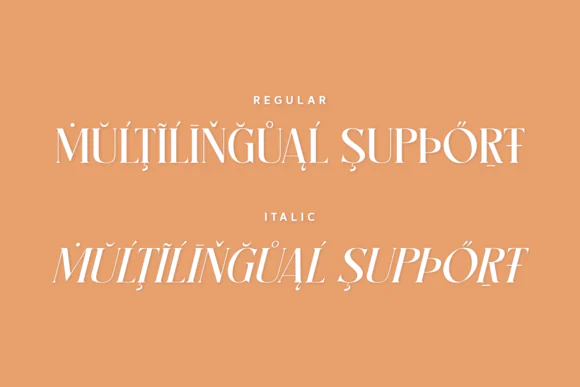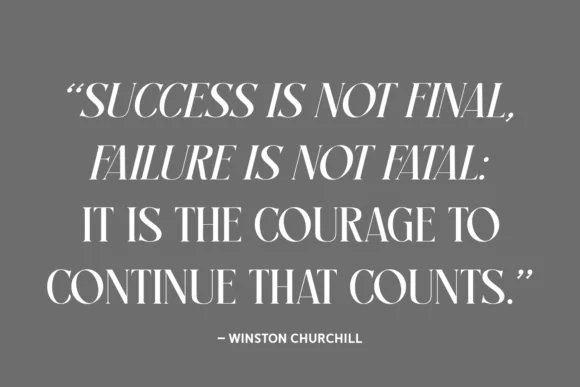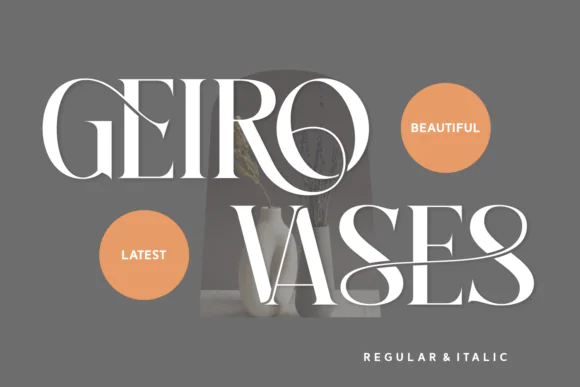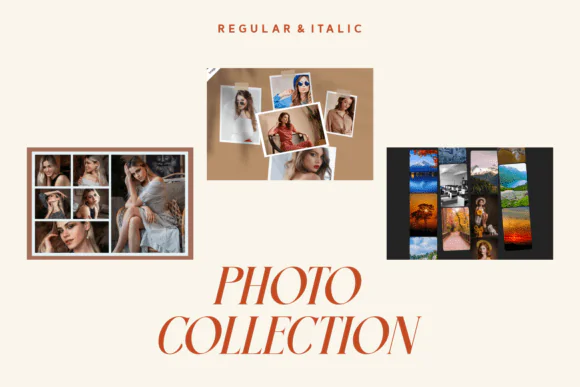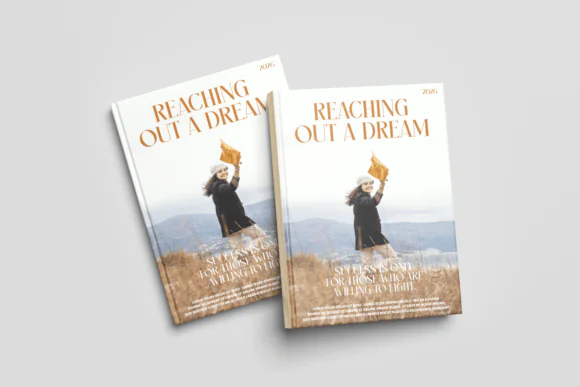
Savage Roses Romantic Serif Font – Elegant Bold Typeface with Ligatures, Italic Style & Multilingual Support for Wedding Invitations, Branding, Book Covers, Fashion, Packaging & Greeting Cards
Create charming, romantic, and eye-catching designs with Savage Roses Font, a breathtaking serif typeface that blends modern elegance, bold character, and soft romantic beauty. With its graceful curls, stylish letterforms, and sophisticated personality, this font is perfect for designs that need warmth, charm, and a memorable visual presence.
Savage Roses Font works beautifully for wedding invitations, birthday cards, branding materials, logos, fashion designs, photography layouts, book covers, magazine titles, packaging, greeting cards, quote designs, t-shirts, social media graphics, product labels, and elegant promotional materials. Its combination of romance and boldness helps your typography feel both lively and refined.
This versatile font includes Regular, Italic, and Ligature styles, giving you more creative flexibility when designing polished typography layouts. It also offers multilingual support, making it useful for projects intended for broader global audiences. Whether you are creating a romantic wedding suite, trendy fashion graphic, captivating book cover, or elegant packaging design, Savage Roses Font helps your words bloom with life and sophistication.
Wedding invitations, birthday cards, branding, logos, fashion designs, photography projects, book covers, magazines, packaging, greeting cards, quotes, t-shirts, product labels, social media graphics, posters, and romantic creative designs.
Key Features
• Romantic and elegant serif font style
• Bold modern look with classic charm
• Delicate curls for enchanting typography
• Includes Regular, Italic, and Ligature styles
• Multilingual support for wider design use
• Great for weddings, branding, book covers, and packaging
• Perfect for digital, print, fashion, and commercial creative projects